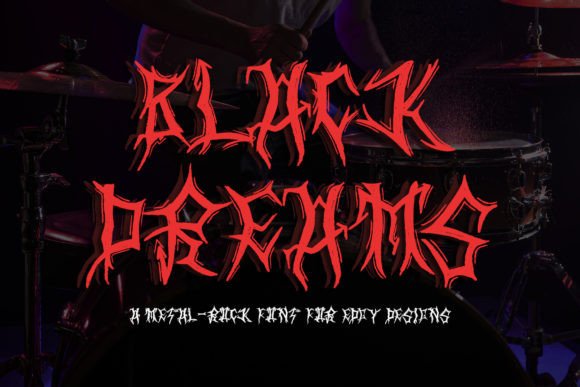
Unleash the Darkness with Black Dreams: A Font Symphony for the Metal Soul
Step into the heart of darkness and embrace the raw, untamed spirit of heavy metal with Black Dreams, the blackletter font that resonates with the pulse of rebellion. Feel the power surge through your veins as you witness the striking interplay of rugged textures and distinctive glyphs that make Black Dreams the ultimate font for expressing the intensity of metal music.
Black Dreams is a symphony of visual audacity, a testament to the unyielding spirit of rock and roll. Its bold, inky strokes dance across your screen like streaks of lightning, commanding attention and leaving an indelible mark on the minds of your audience. Whether you're crafting album covers that scream with defiance or unleashing the fury of metal in t-shirt designs, Black Dreams is your weapon of choice.
With Black Dreams at your fingertips, you hold the key to unlocking the gates of creativity and unleashing your inner metal warrior. Its versatility extends beyond mere headlines; weave it into your body text and watch as your words transform into a visual feast, captivating and mesmerizing your readers. Create posters that ignite the passion of metalheads, leaving them spellbound by the sheer intensity of your designs.
Black Dreams is not just a font; it's a declaration of allegiance to the metal nation. It's an invitation to embrace the darkness, to let the music flow through your veins and manifest itself in the form of stunning visuals. So, pick up Black Dreams today and let the world witness the birth of your metal masterpiece.